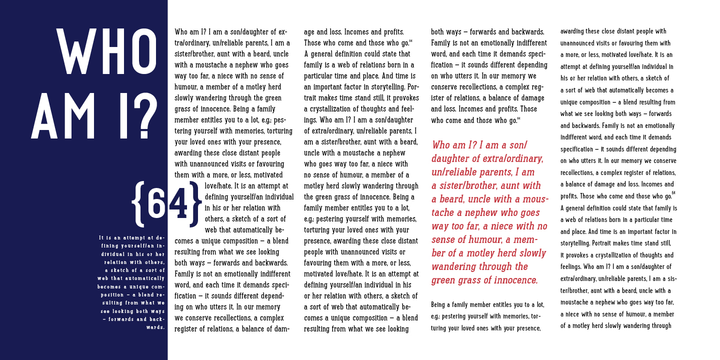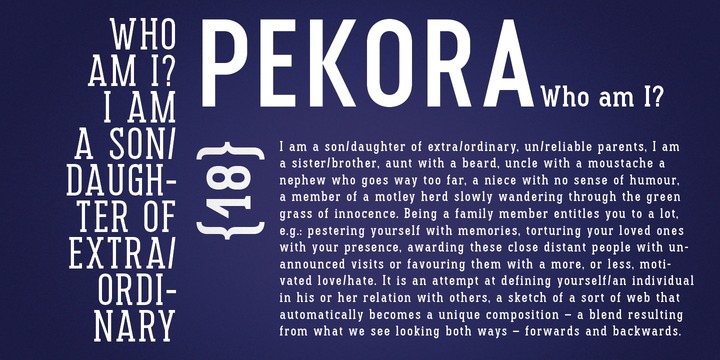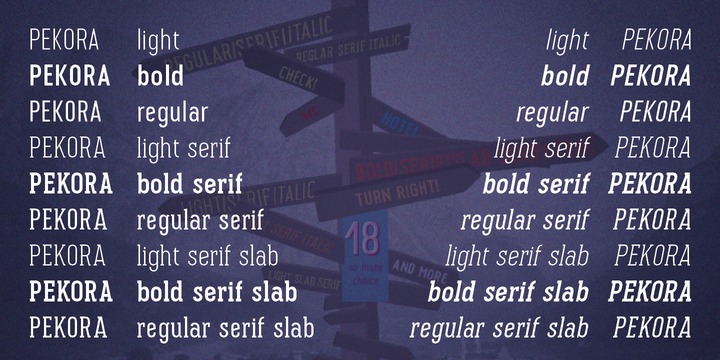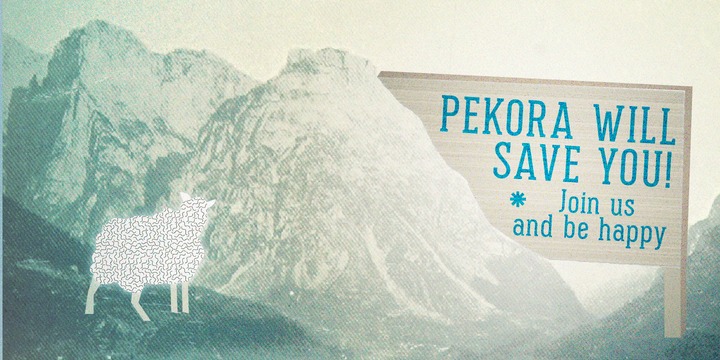
Pekora Font Family
To design the font Pekora I was inspired by a You And Me Monthly published by National Magazines Publisher RSW Prasa that appeared from May 1960 till December 1973 in Poland.